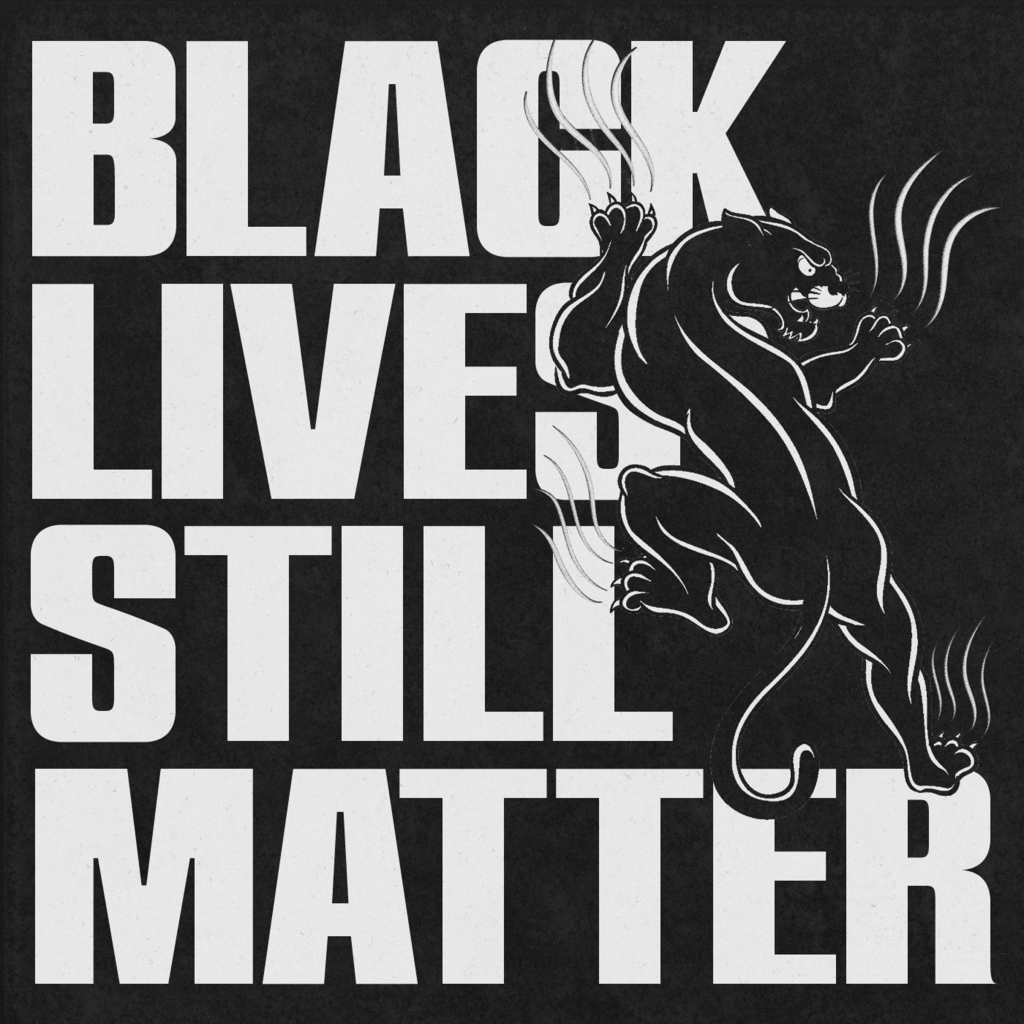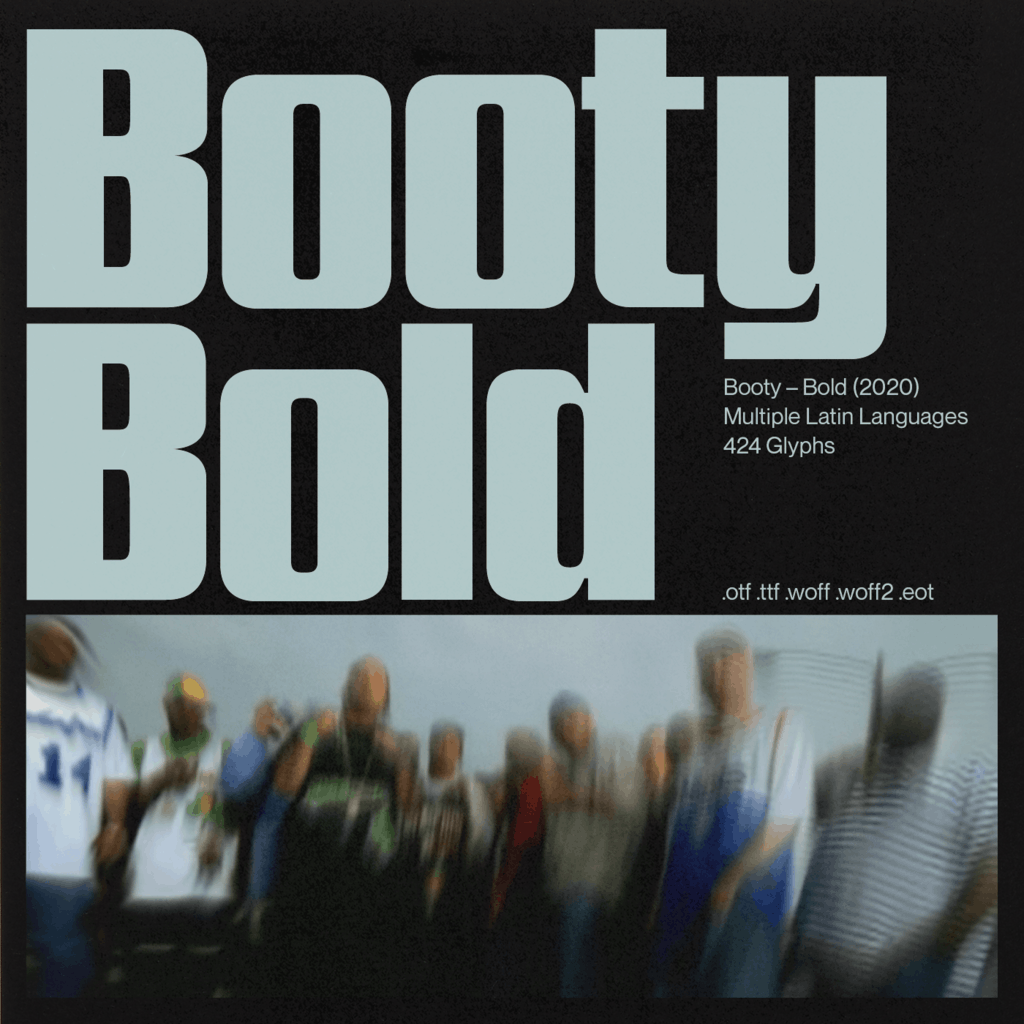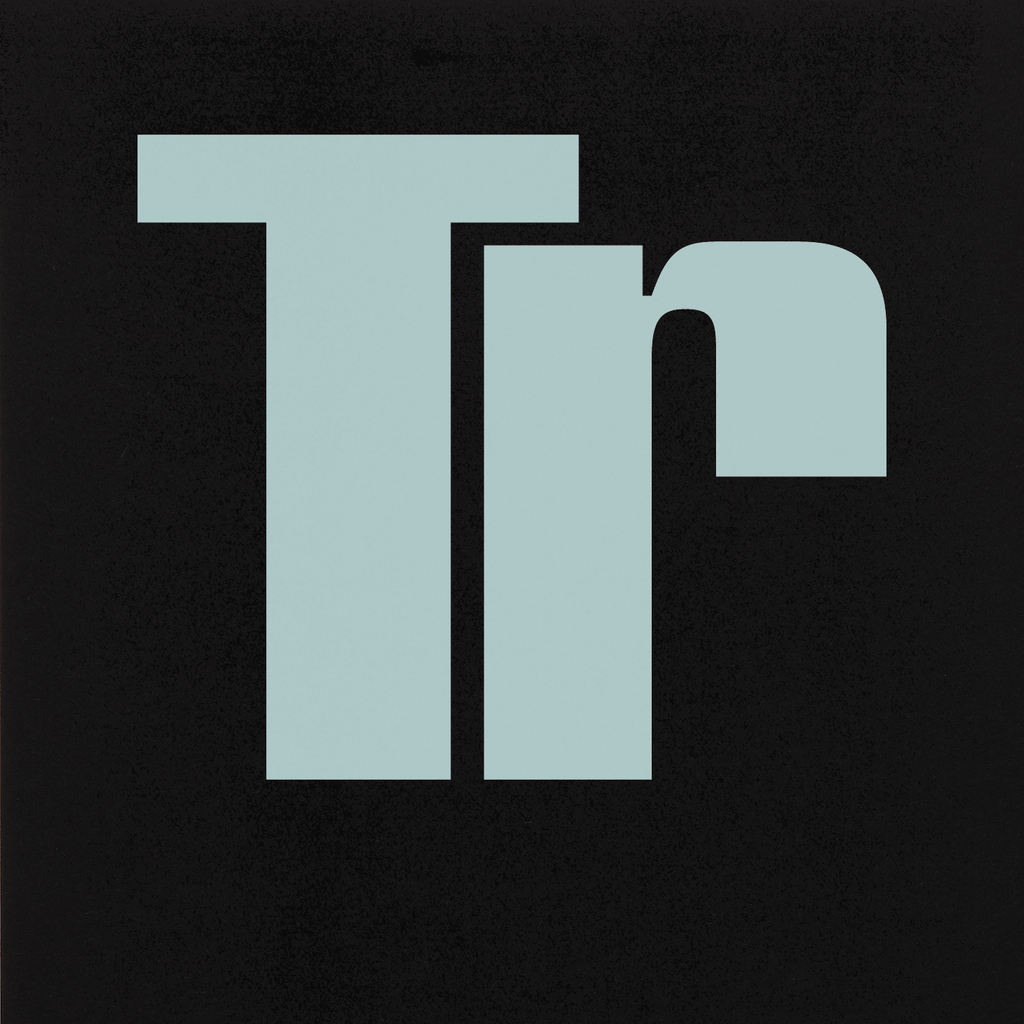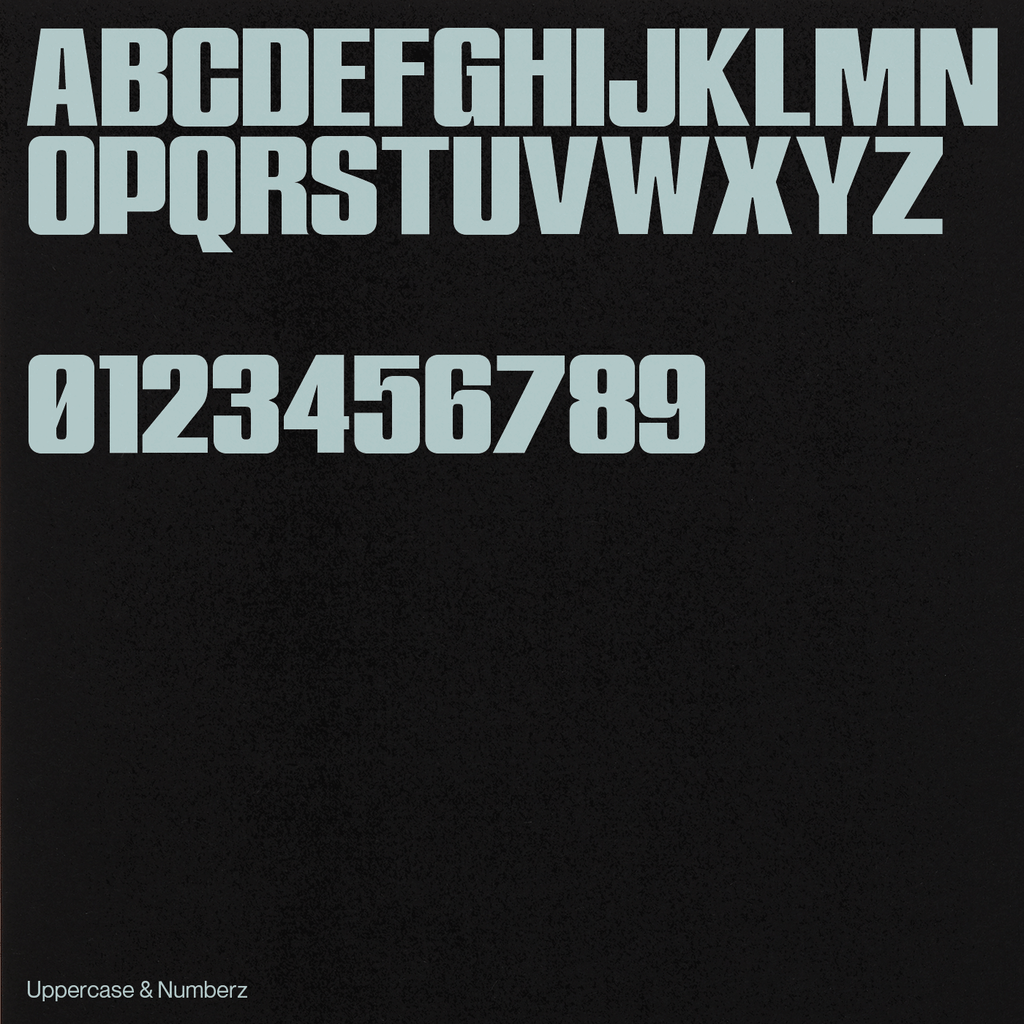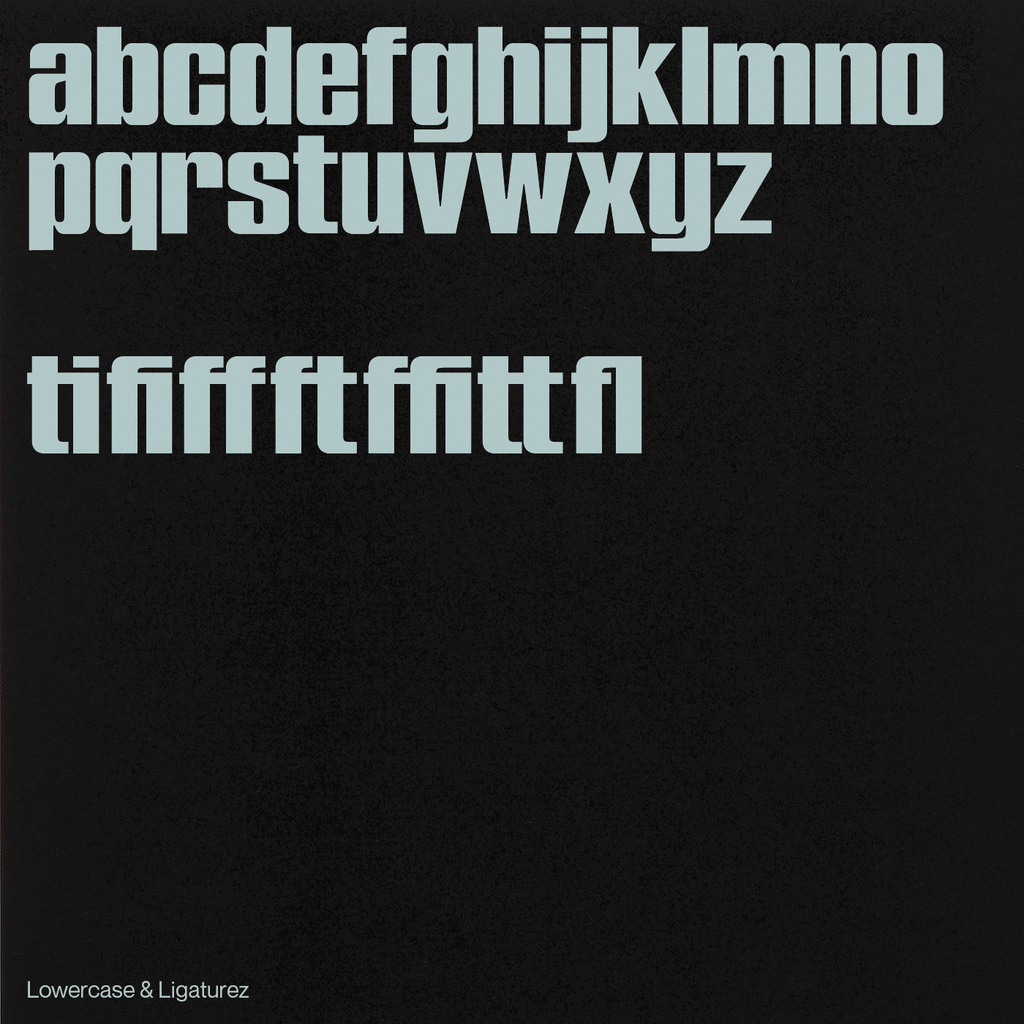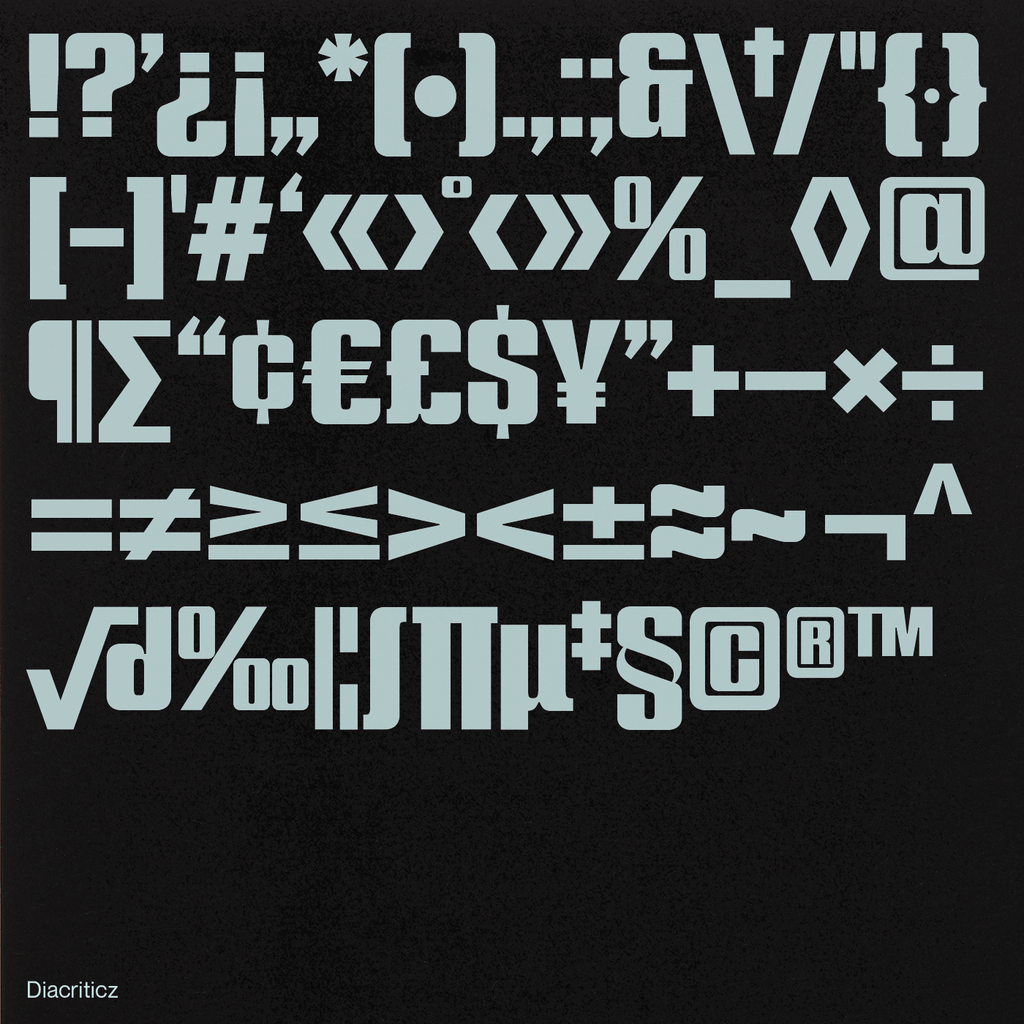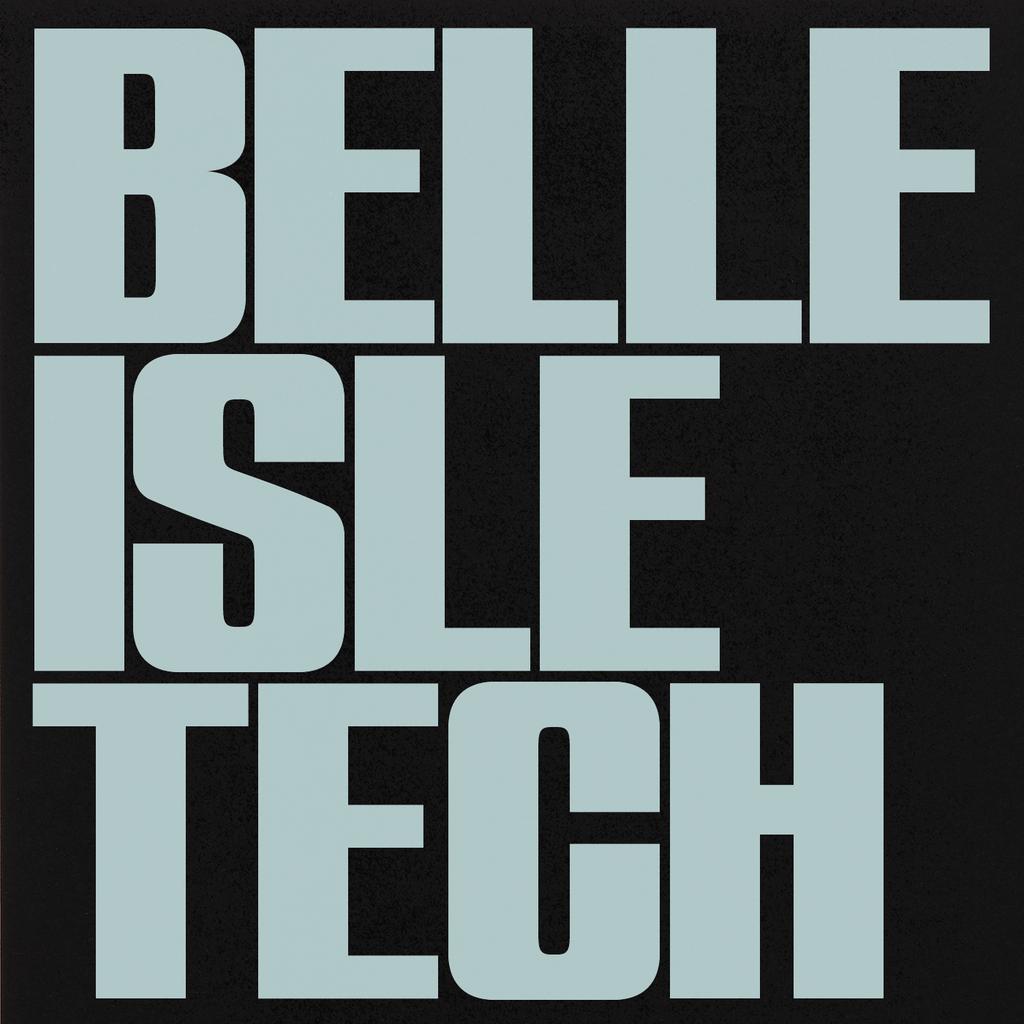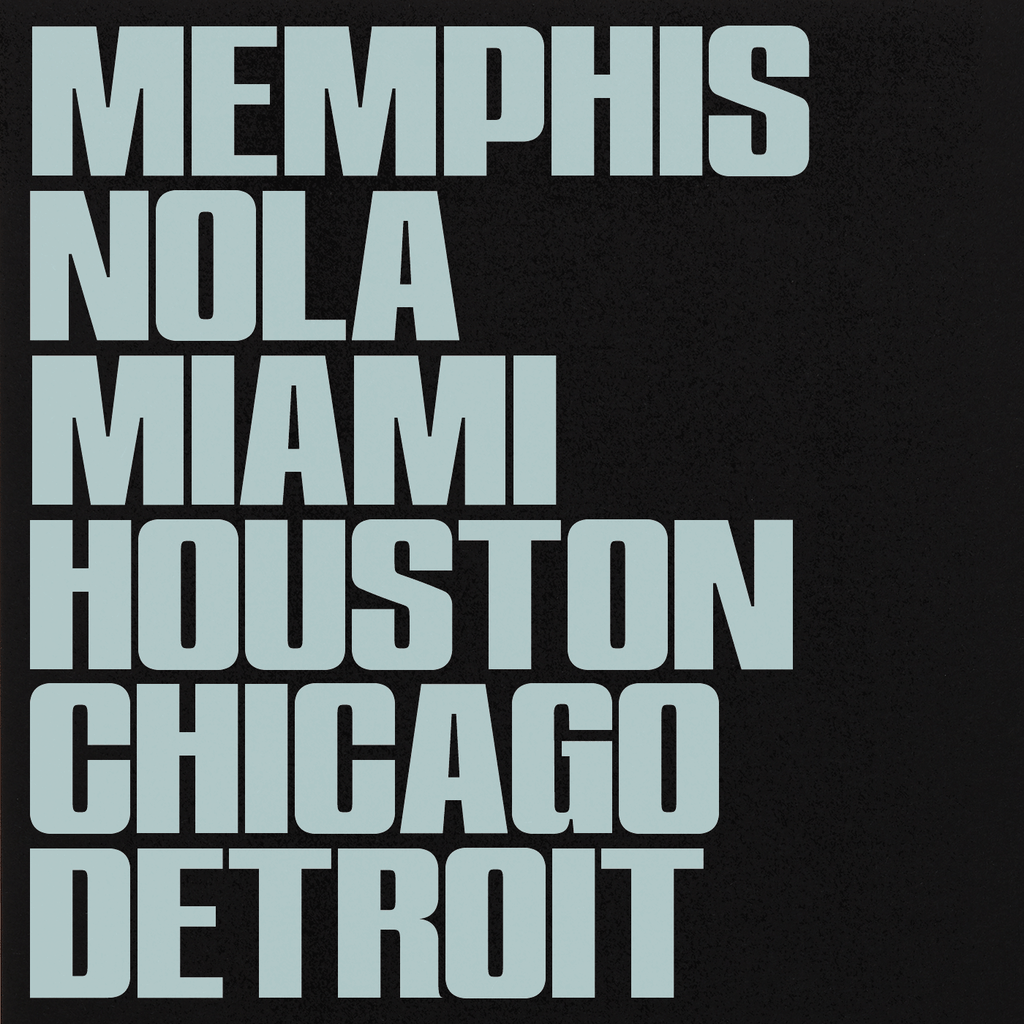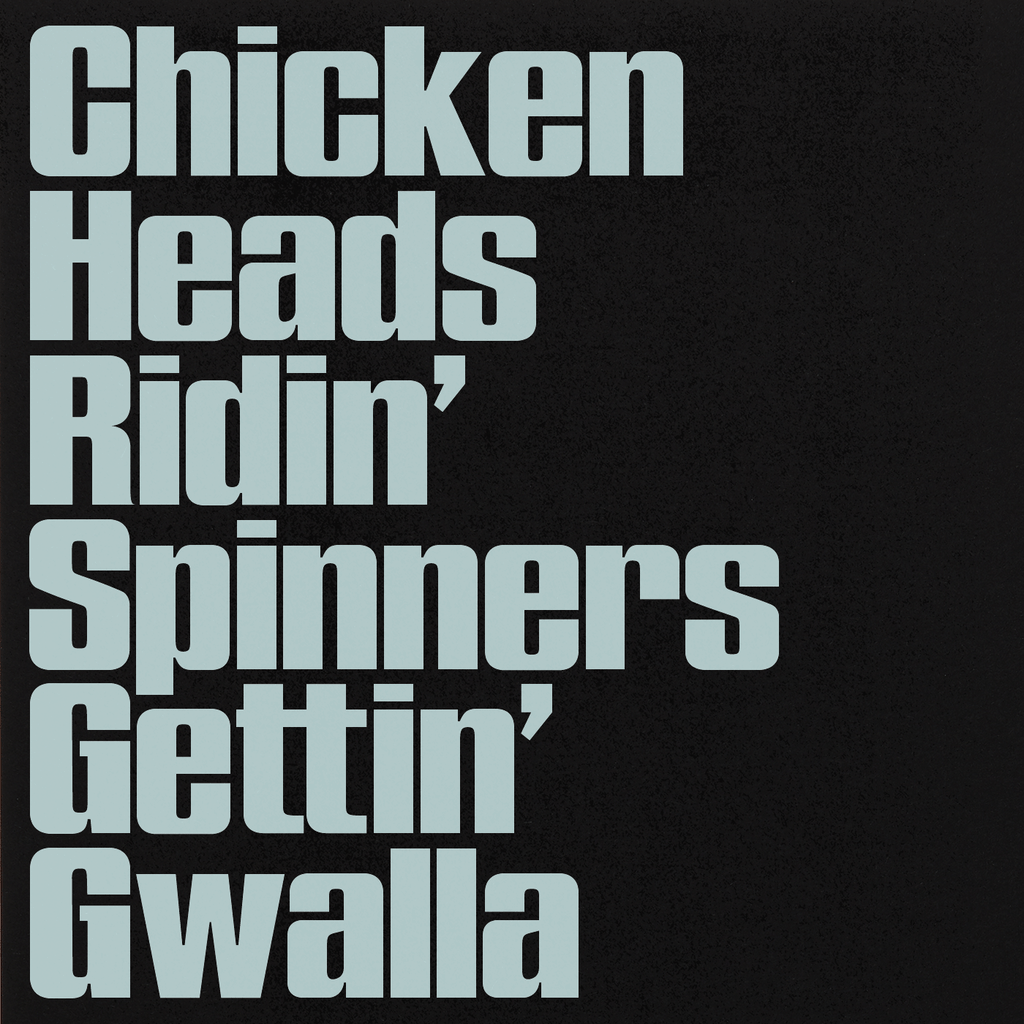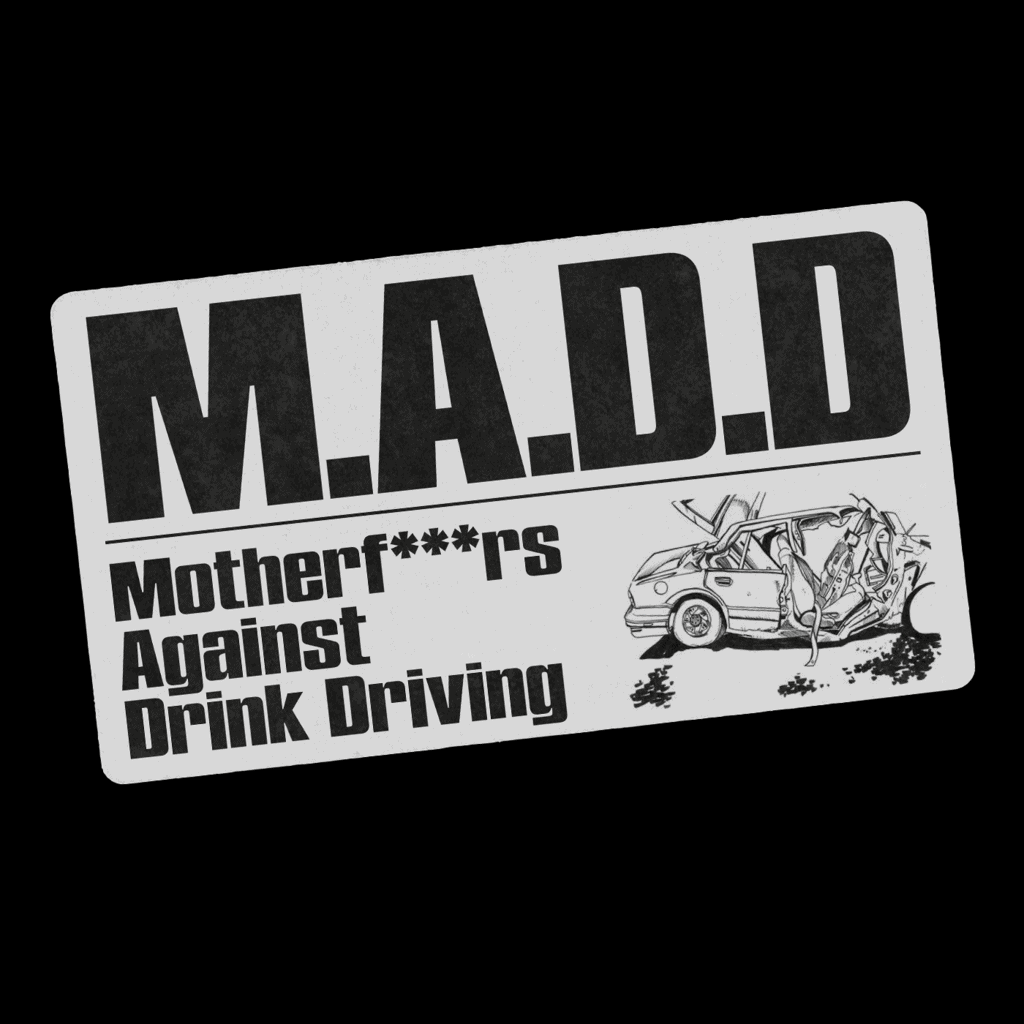
Booty Bold
Nat Brown
Designed by Berlin-based designer Nat Brown, Booty Bold is a slightly condensed sans-serif font inspired by the vibrant culture of regional American club music and its celebration of voluptuous figures. The uppercase and lowercase characters maintain a consistent weight, lending the font a digital aesthetic reminiscent of monospaced typefaces. Its blend of nostalgia and futurism makes Booty Bold versatile for various design applications.
Best suited for larger sizes, Booty Bold shines in headlines, posters, and logotypes, where its bold and dynamic presence captures attention with its unique cultural flair.
- Total Glyph set: 433
- Uppercase, lowercase, punctuation, numbers
- Diacritics
- Symbols
- Specialised kerning